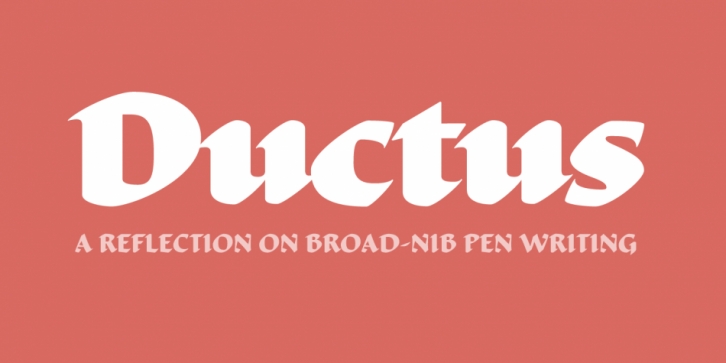
Designed by Thomas Jockin, Ductus is a historical and display serif font family. This typeface has five styles and was published by Thomas Jockin.
Ductus is a five weight typeface that is both ancient and contemporary. Drawing on various sources such as rustic capitals, Naskh arabic calligraphy, and black-letter, Ductus is a reflection on how the broad-nib pen can be relevant for today’s designer.